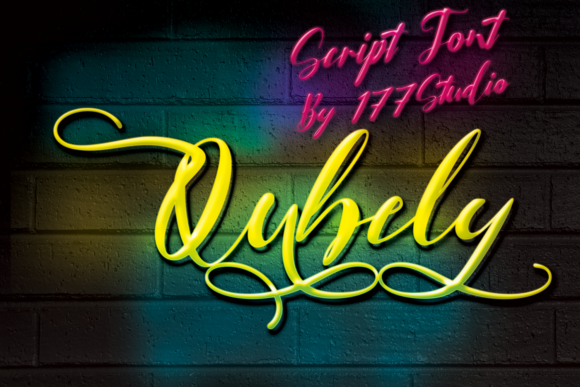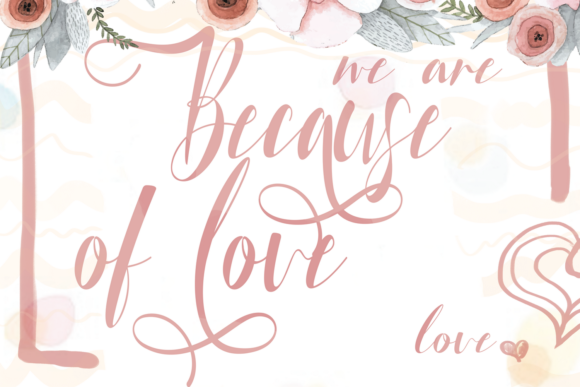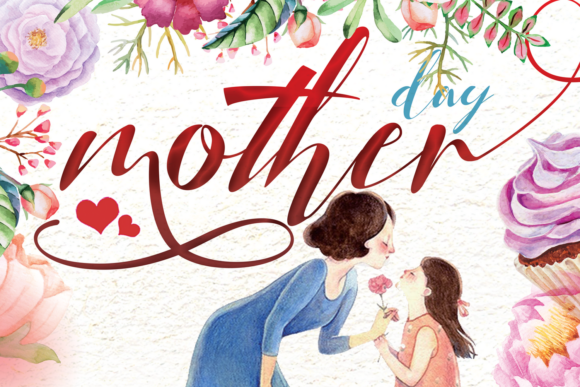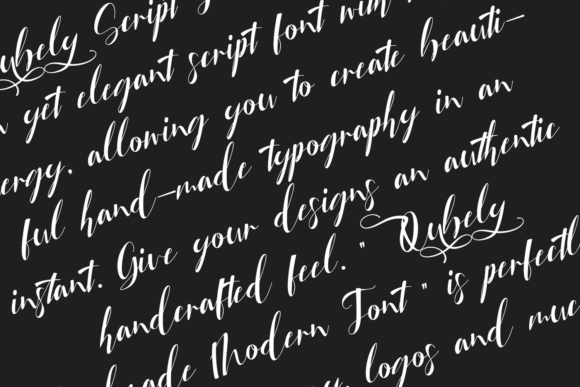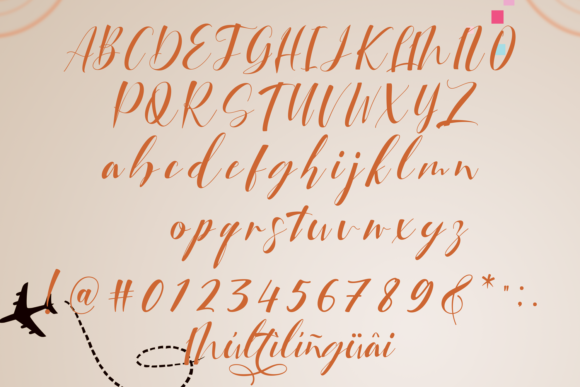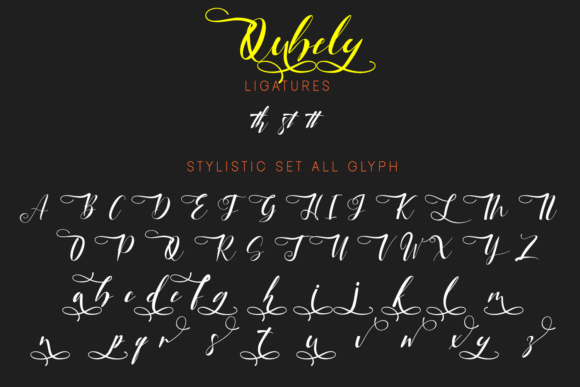
Qubely Font
About Qubely Font
Qubely feels equally charming and elegant. It looks stunning on wedding invitations, thank you cards, quotes, greeting cards, logos, business cards and every other design which needs a handwritten touch.